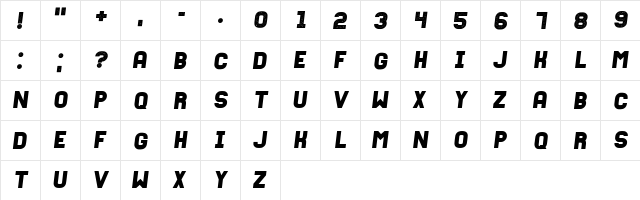
Fixation Italic
Design Context for Fixation Typeface
Fixation offers clean, dependable letterforms without strong stylistic allegiance, making it a practical choice for designers who need flexibility. Its italic angle brings a sense of urgency and motion to the letterforms.
Pro Tip: Use Fixation for emphasis, pull quotes, and subheadings where its slanted energy can add rhythm to the layout.